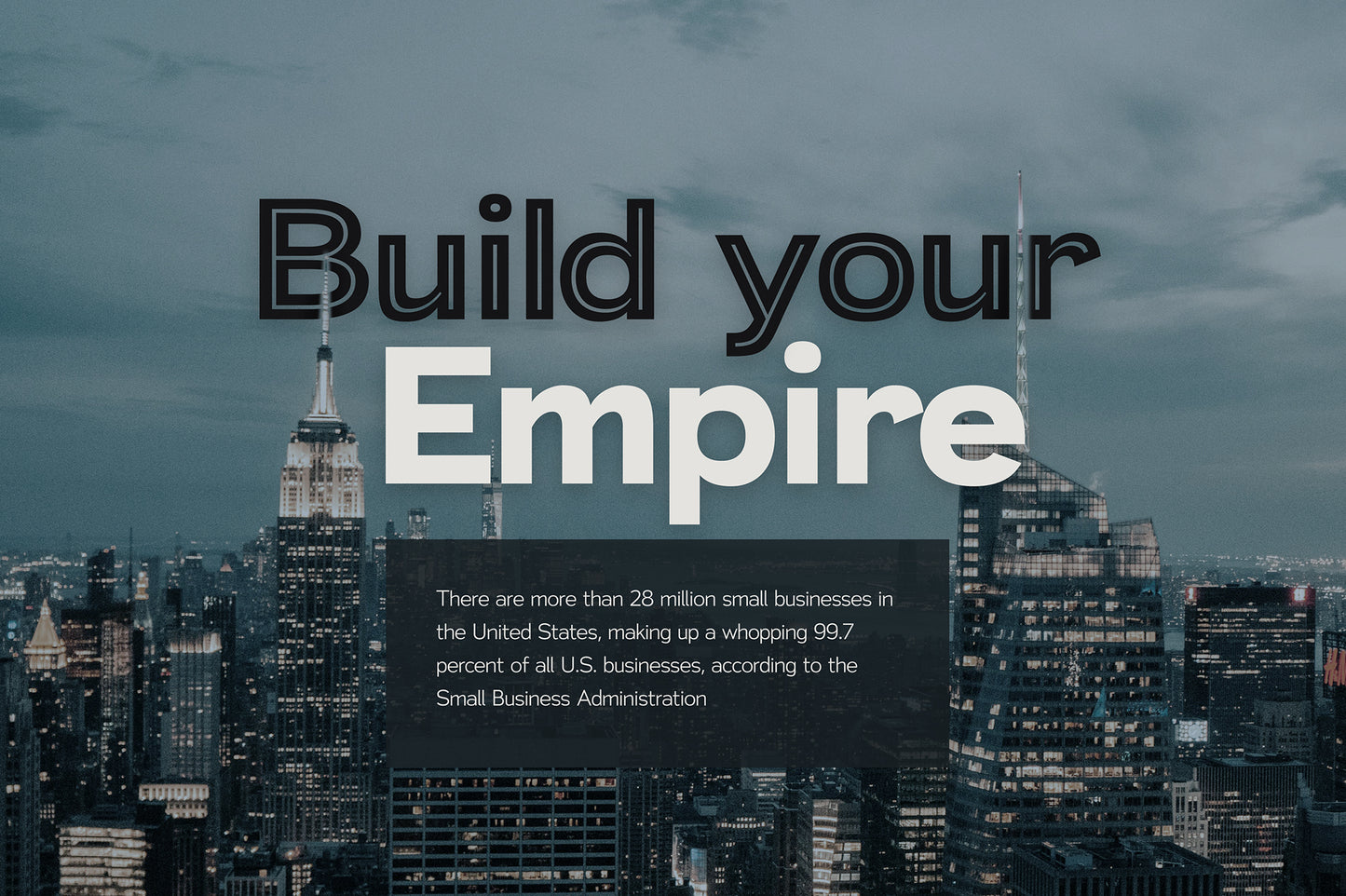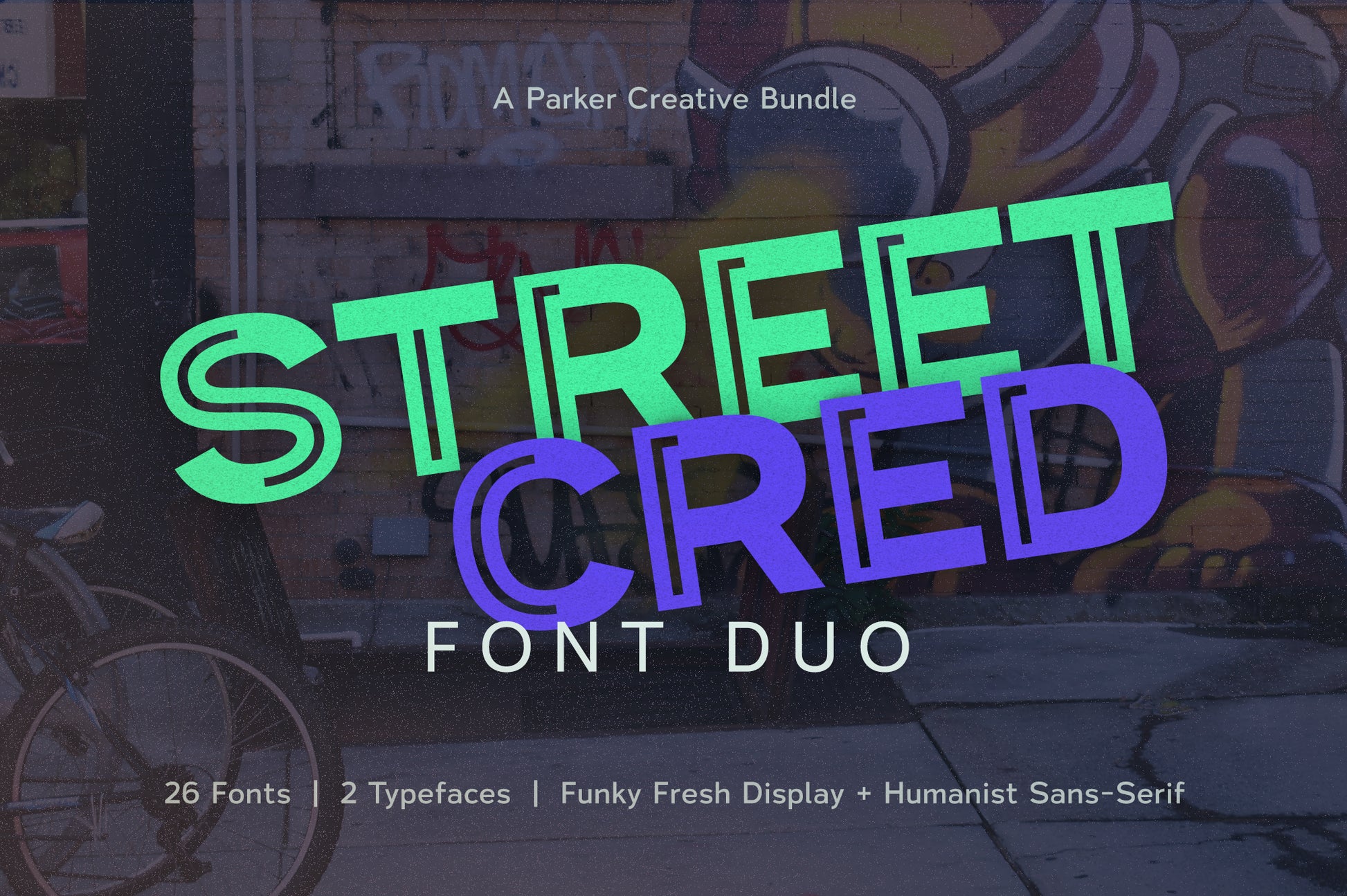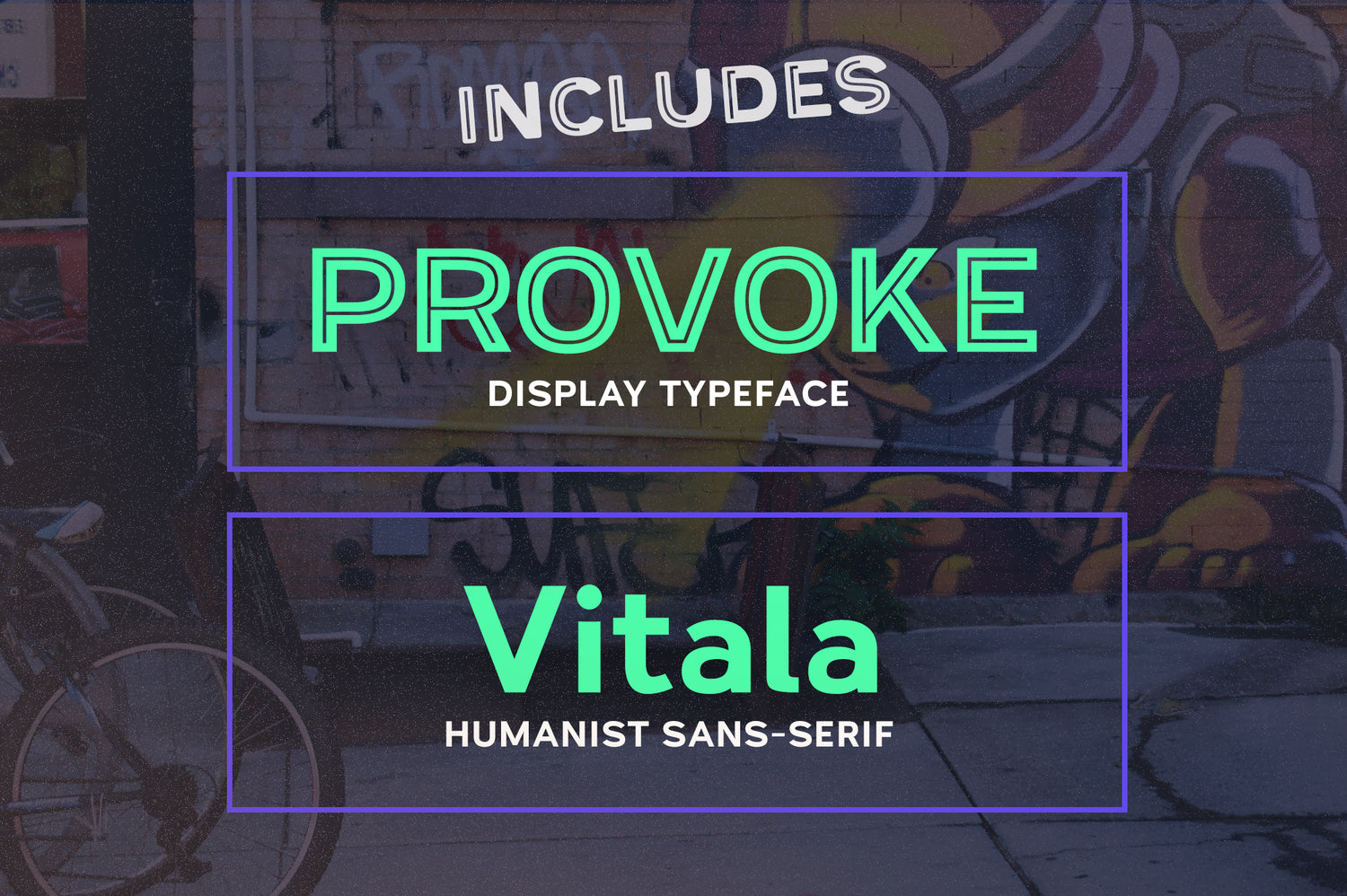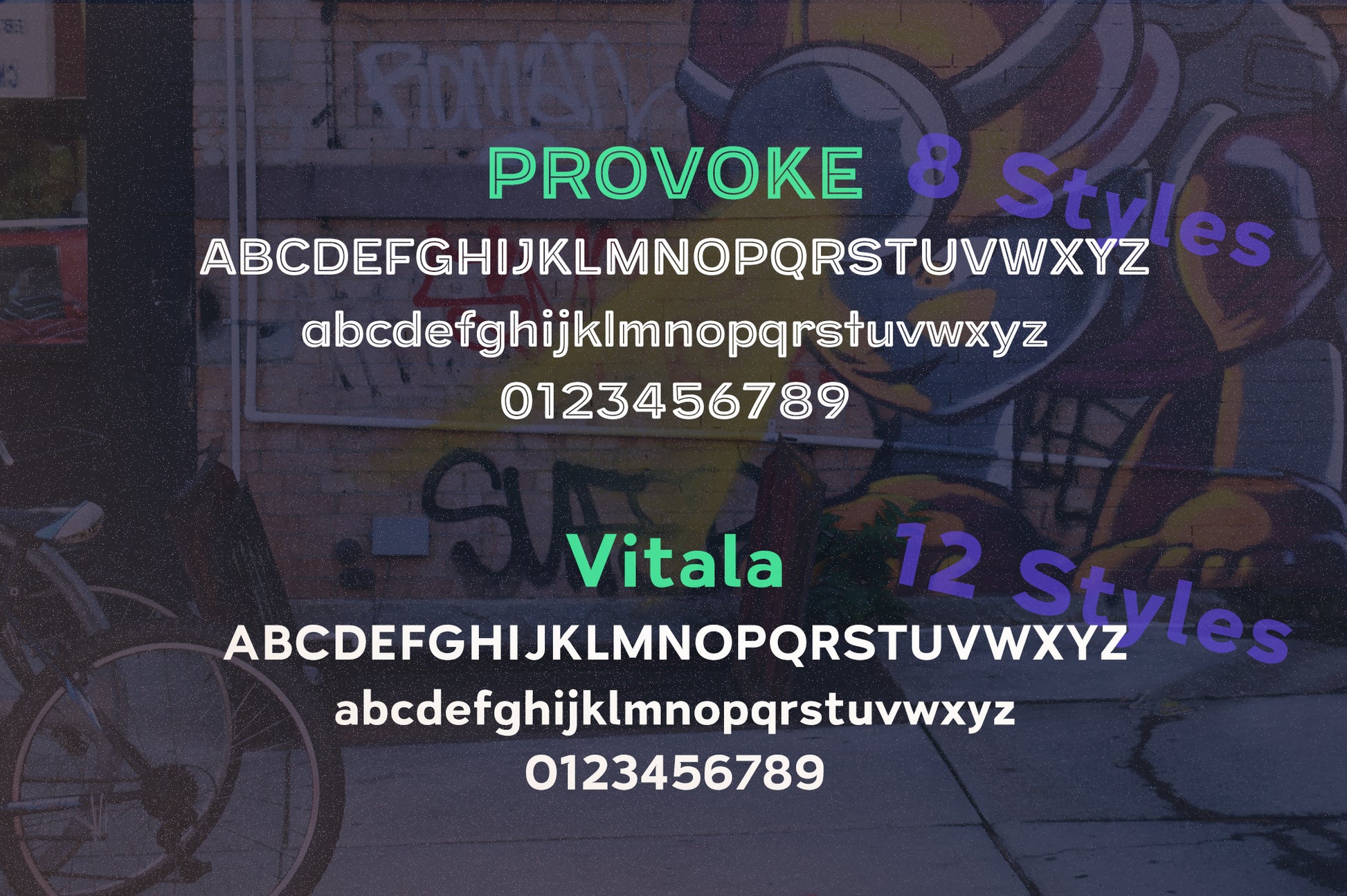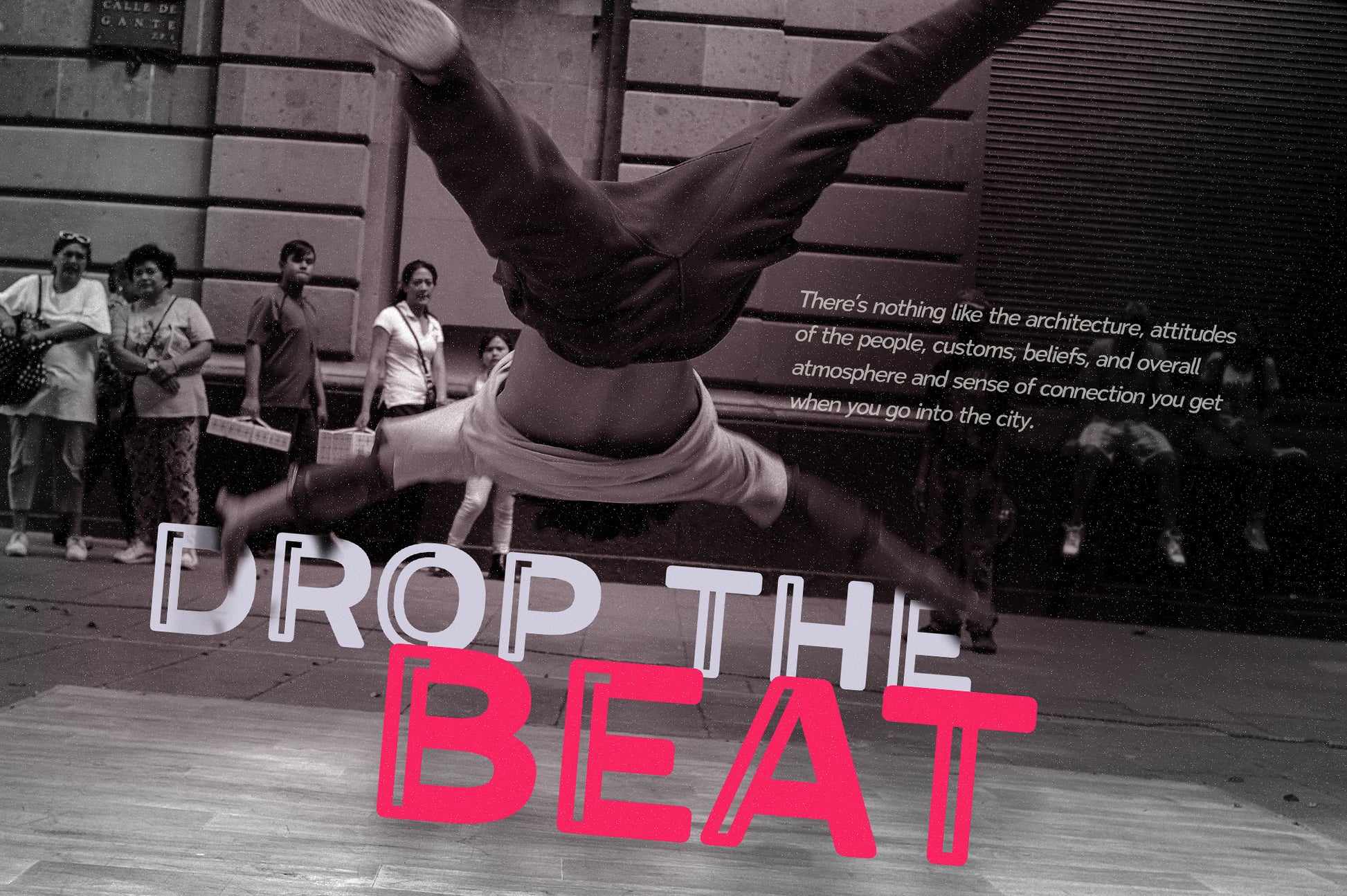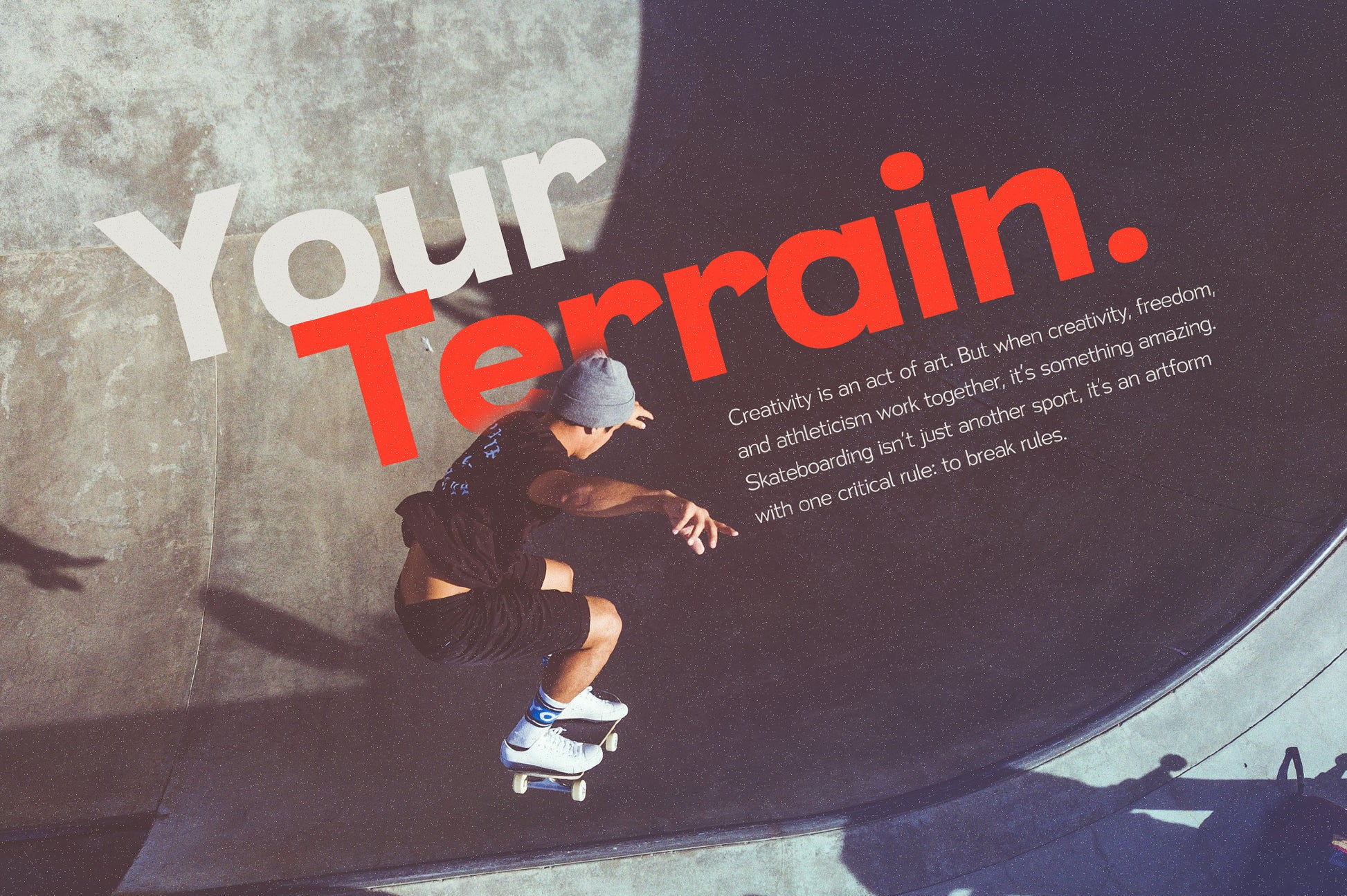
Street Cred Font Duo
Create wild, exciting new designs that deliver bold presence with tons of personality! The Street Cred Font Duo pairs the powerful presence of Provoke, a thick inline display typeface, with the incredible versatility of Vitala, a robust humanist sans-serif. For projects big and small, the Street Cred Font Duo is sure to pack a unique punch with a funky presence that you won't find elsewhere.
Provoke: This typeface is boldly rooted in modern urban culture and can create two incredibly distinct visual styles based on the specific font that is utilized. In all, Provoke comes in 10 font variations for a great amount of versatility for your project. Whether you're looking for modern chic, or streetlamp funk, this typeface has you covered.
Vitala: Designed to be highly readable with a unique personality, Vitala achieves both with an incredibly balanced character set and subtle humanist characteristics. Style your body copy and subheadings however you like with this highly versatile typeface which comes with 8 weight variations + obliques.